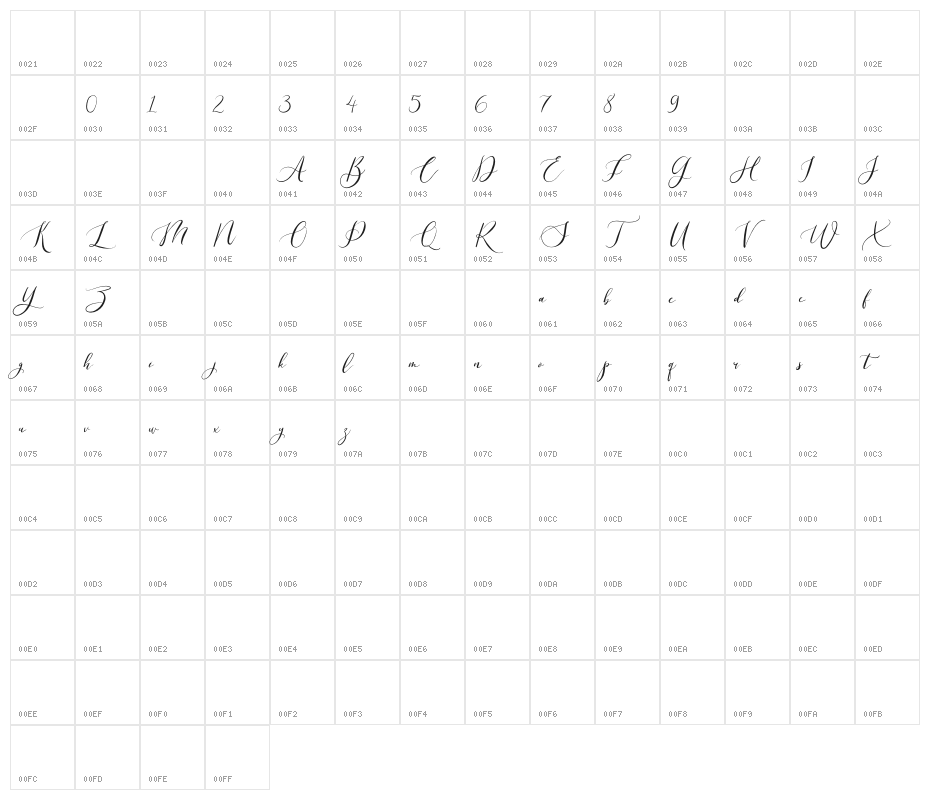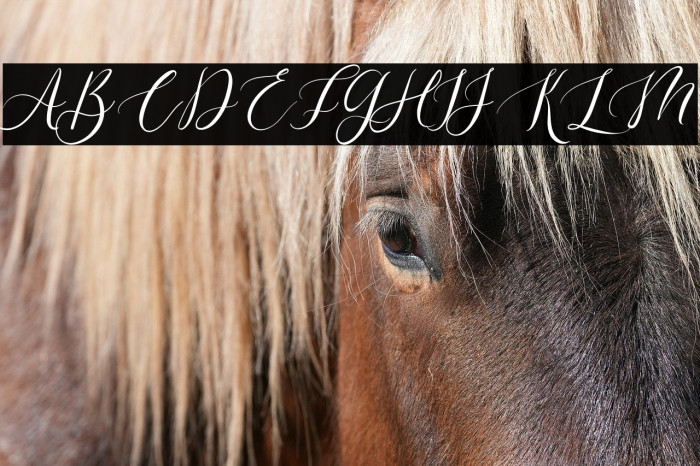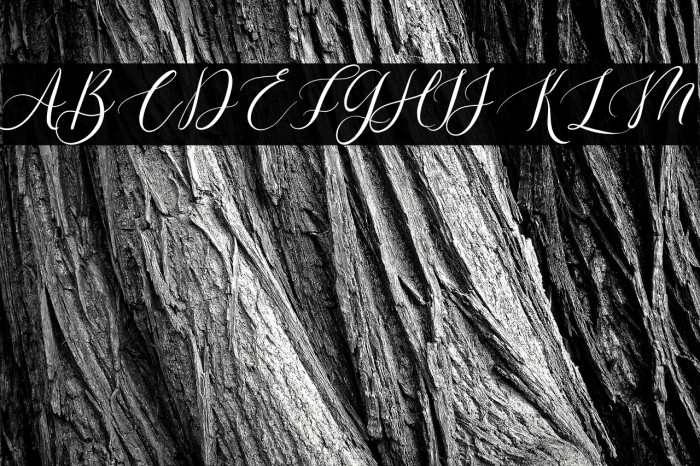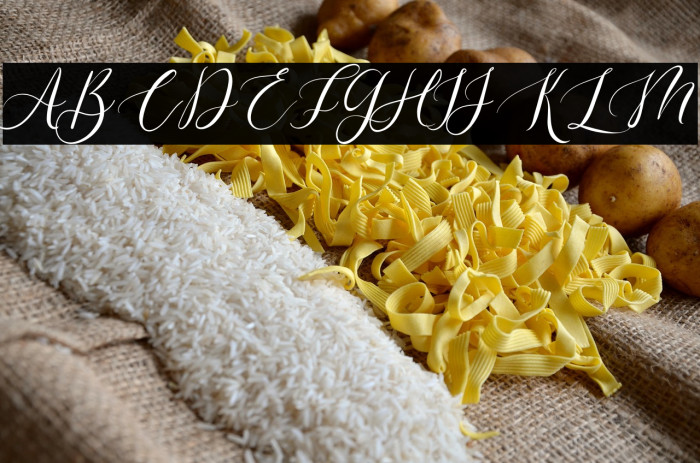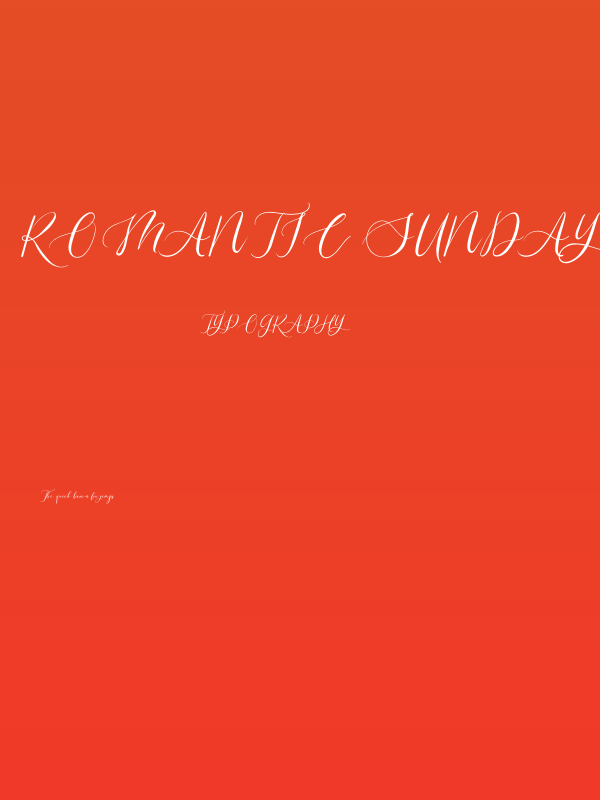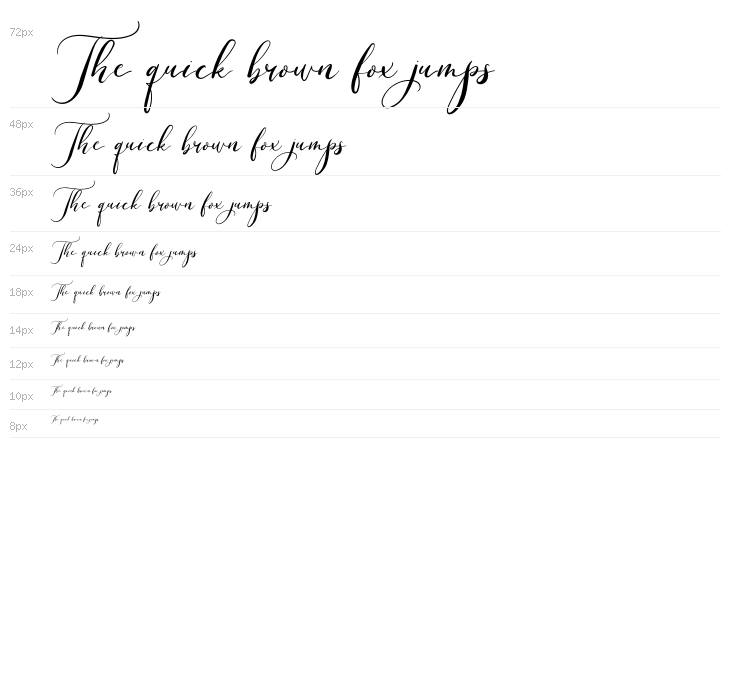
Romantic Sunday Font
Romantic Sunday Description
This elegant script font features flowing, cursive letters with a romantic and sophisticated flair. The uppercase letters are ornate and decorative, with intricate loops and swirls that give them a graceful appearance. The lowercase letters maintain a consistent style, with smooth, connected strokes that enhance readability while preserving the font's artistic nature. The numerals are designed with a similar elegance, featuring subtle curves and a balanced weight. This font is perfect for adding a touch of class and romance to any design project.
| Overall Style | Romantic |
| Use Case | Headlines, Invitations, Logos |
| Proposed Projects | Ideal for wedding invitations, greeting cards, elegant branding, and romantic-themed designs. |